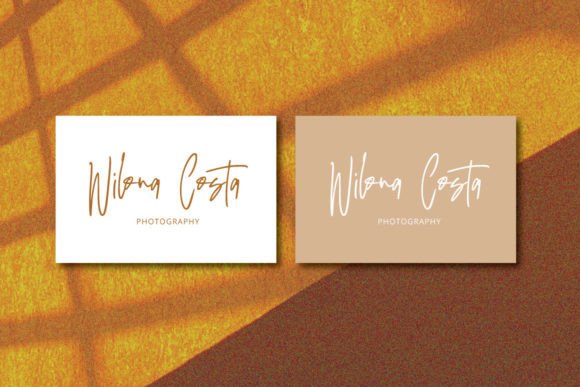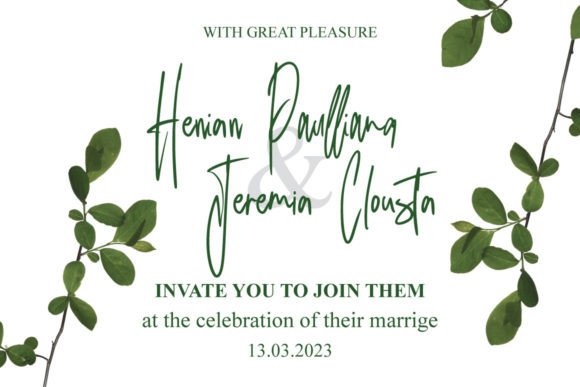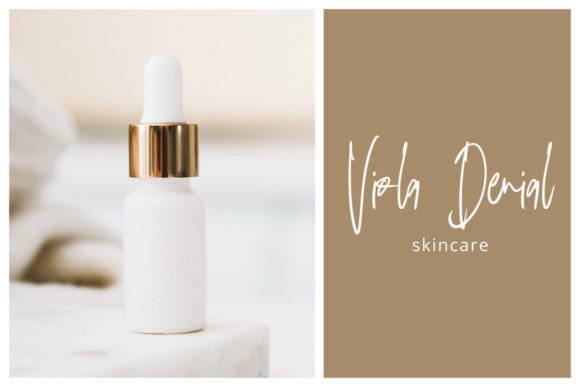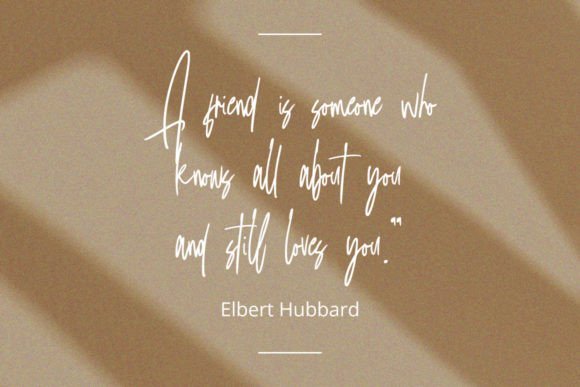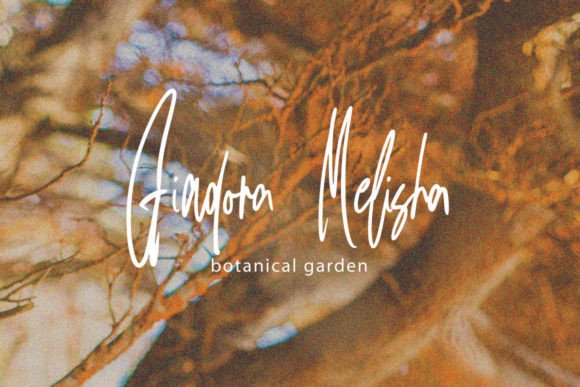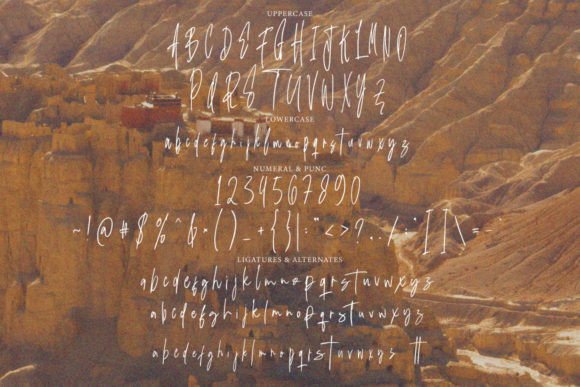
Introducing Badriyas Font: Elevate Your Designs with Elegance and Sophistication
In the world of design, typography plays a crucial role in conveying the tone and personality of a brand. A well-chosen font can make all the difference in creating a lasting impression on your audience. If you’re looking for a font that exudes elegance, sophistication, and timelessness, look no further than Badriyas Font. This stylish and elegant signature font is perfect for adding a touch of refinement to your designs, making it ideal for branding, packaging, and other high-end design projects.
The Classic Charm of Badriyas Font
Badriyas Font boasts classic letterforms and graceful curves that create a sense of nostalgia and luxury. Its traditional yet refined design makes it perfect for designers and crafters who want to add a touch of sophistication to their work. Whether you’re working on a branding project, packaging design, or a high-end editorial piece, Badriyas Font is sure to impress. The font’s classic charm is reminiscent of traditional calligraphy, making it perfect for designs that require a sense of heritage and tradition.
Key Features of Badriyas Font
- Elegant and Refined Design: Badriyas Font features a stylish and elegant design that is perfect for high-end design projects.
- Classic Letterforms: The font boasts classic letterforms that create a sense of nostalgia and luxury.
- Graceful Curves: The font’s graceful curves add a touch of sophistication and refinement to your designs.
- Timeless Look: Badriyas Font has a timeless look that is perfect for designs that require a sense of heritage and tradition.
- Versatile: The font is versatile and can be used for a variety of design projects, including branding, packaging, and editorial design.
Badriyas Font is perfect for designers and crafters who want to add a touch of elegance and sophistication to their work. Whether you’re working on a personal project or a client’s design brief, this font is sure to impress. Its classic design makes it perfect for a variety of design projects, including:
- Branding: Use Badriyas Font to create a luxurious and sophisticated brand identity that will leave a lasting impression on your audience.
- Packaging Design: Add a touch of elegance to your packaging design with Badriyas Font, perfect for high-end products and luxury brands.
- Editorial Design: Use Badriyas Font to create a timeless and sophisticated look for your editorial designs, including magazines, newspapers, and books.
Tips for Using Badriyas Font
To get the most out of Badriyas Font, here are a few tips to keep in mind:
- Use it sparingly: Badriyas Font is a statement font, so use it sparingly to add emphasis and create a lasting impression.
- Pair it with a sans-serif font: Pair Badriyas Font with a sans-serif font to create a beautiful contrast and add visual interest to your design.
- Experiment with different sizes: Experiment with different sizes to create a hierarchy of information and add depth to your design.
In conclusion, Badriyas Font is a stylish and elegant signature font that is perfect for adding a touch of sophistication to your designs. Its classic letterforms and graceful curves create a timeless look that is perfect for branding, packaging, and other high-end design projects. Whether you’re a designer or crafter, Badriyas Font is a must-have font that will elevate your designs to the next level. So why wait? Download Badriyas Font today and start creating stunning designs that exude elegance and sophistication.